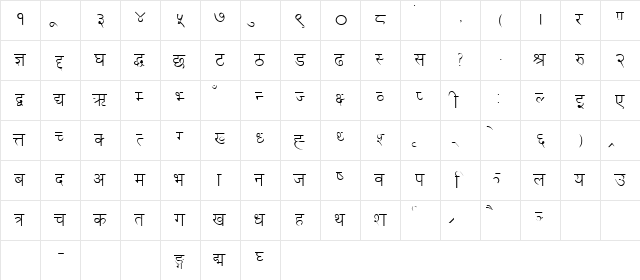
Sabdatara Normal
Design Context for Sabdatara Typeface
Sabdatara offers clean, dependable letterforms without strong stylistic allegiance, making it a practical choice for designers who need flexibility.